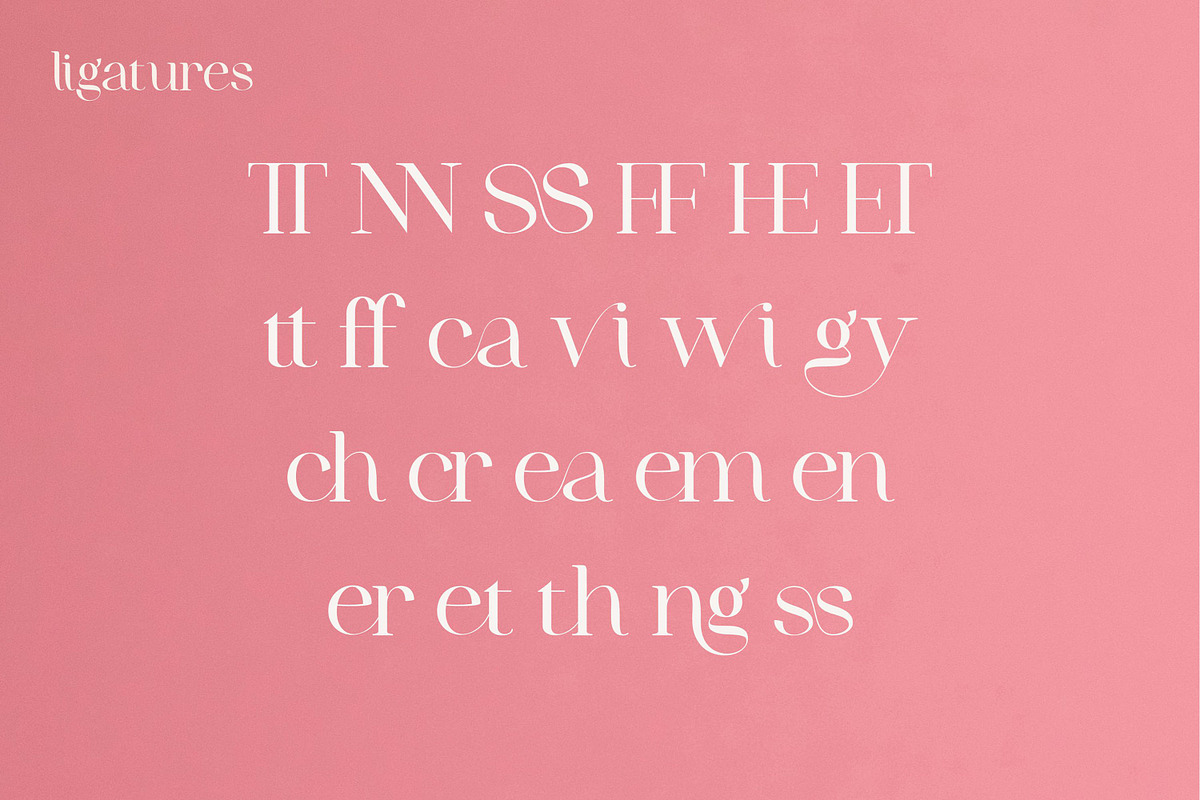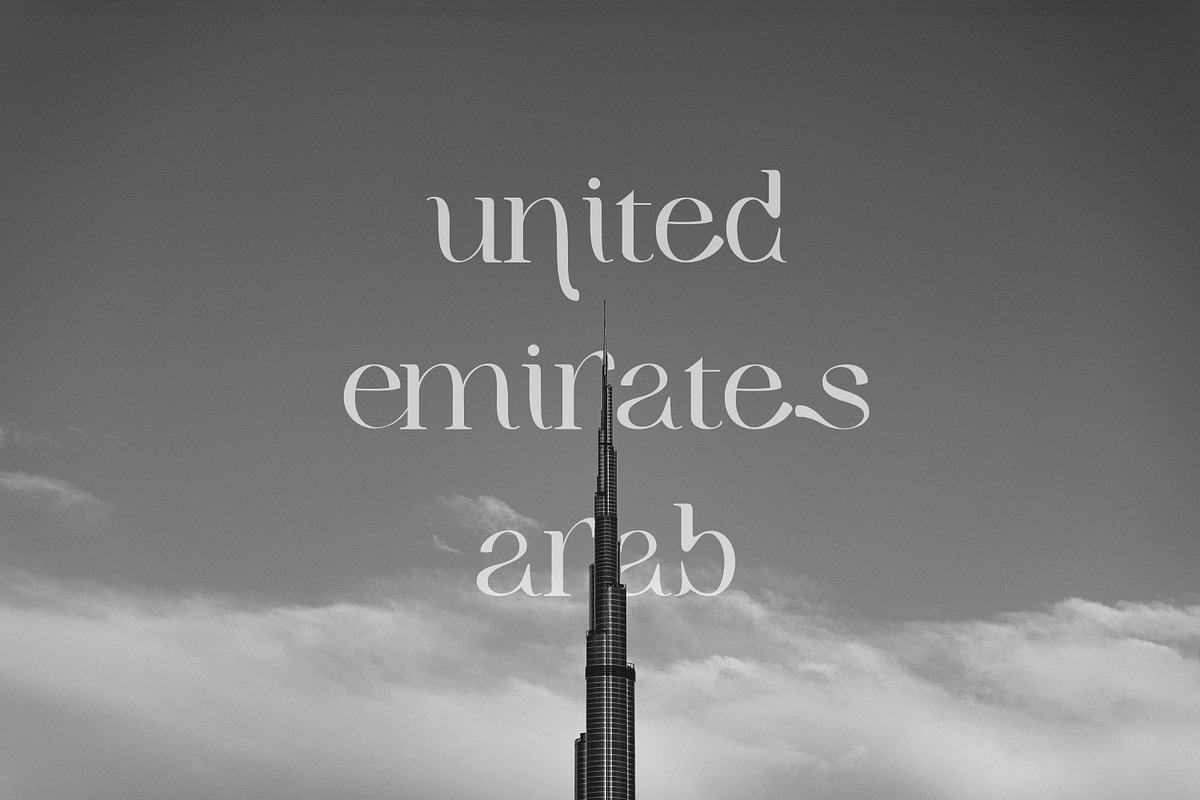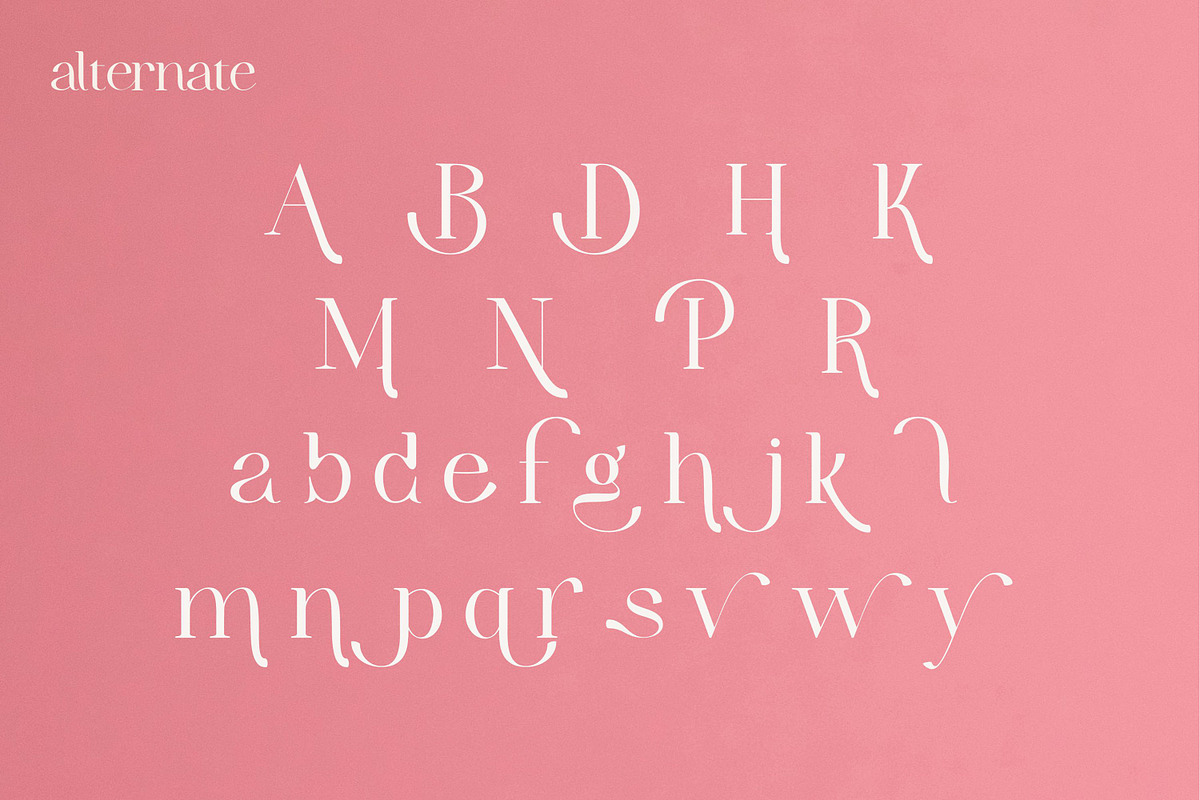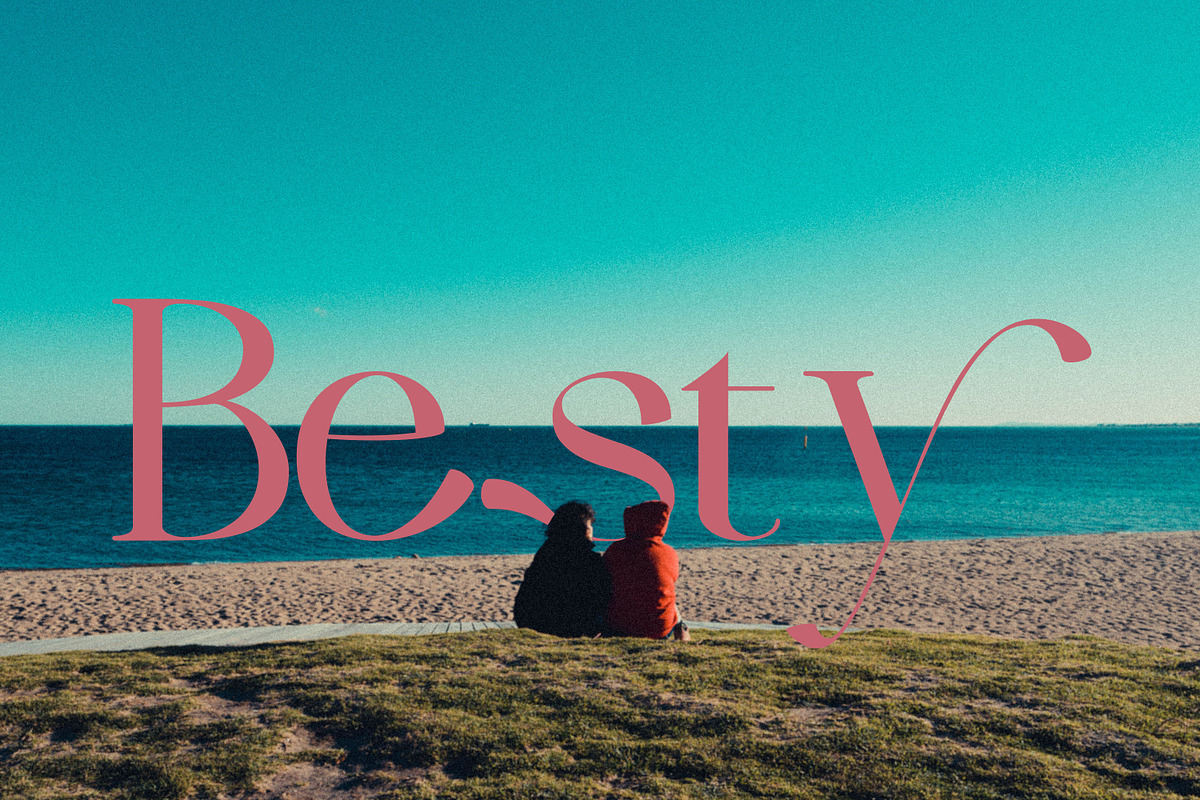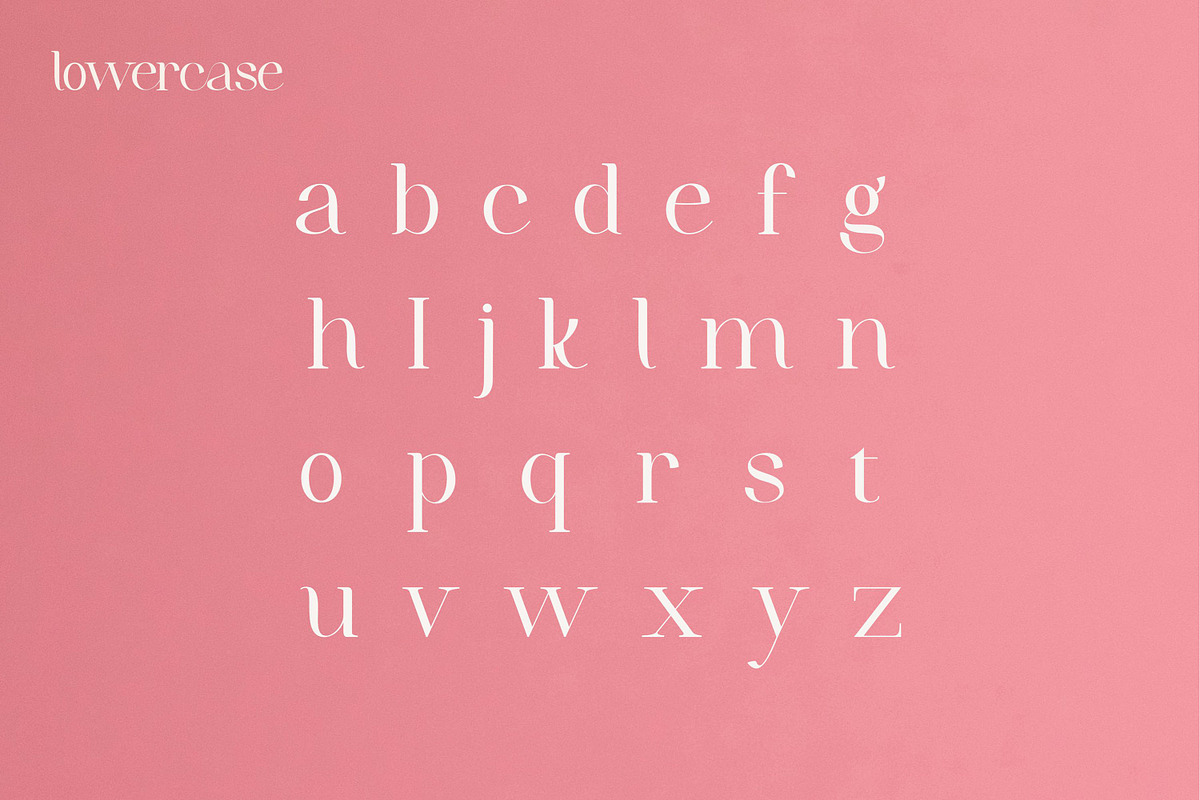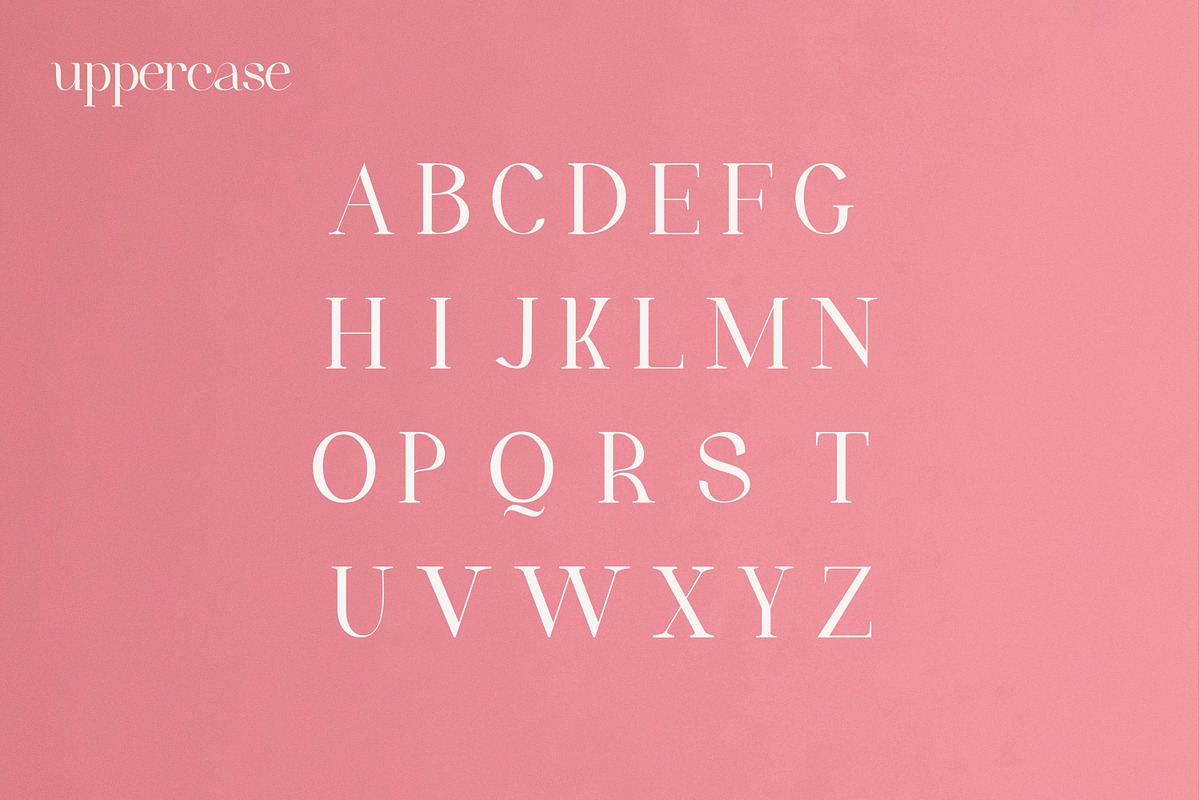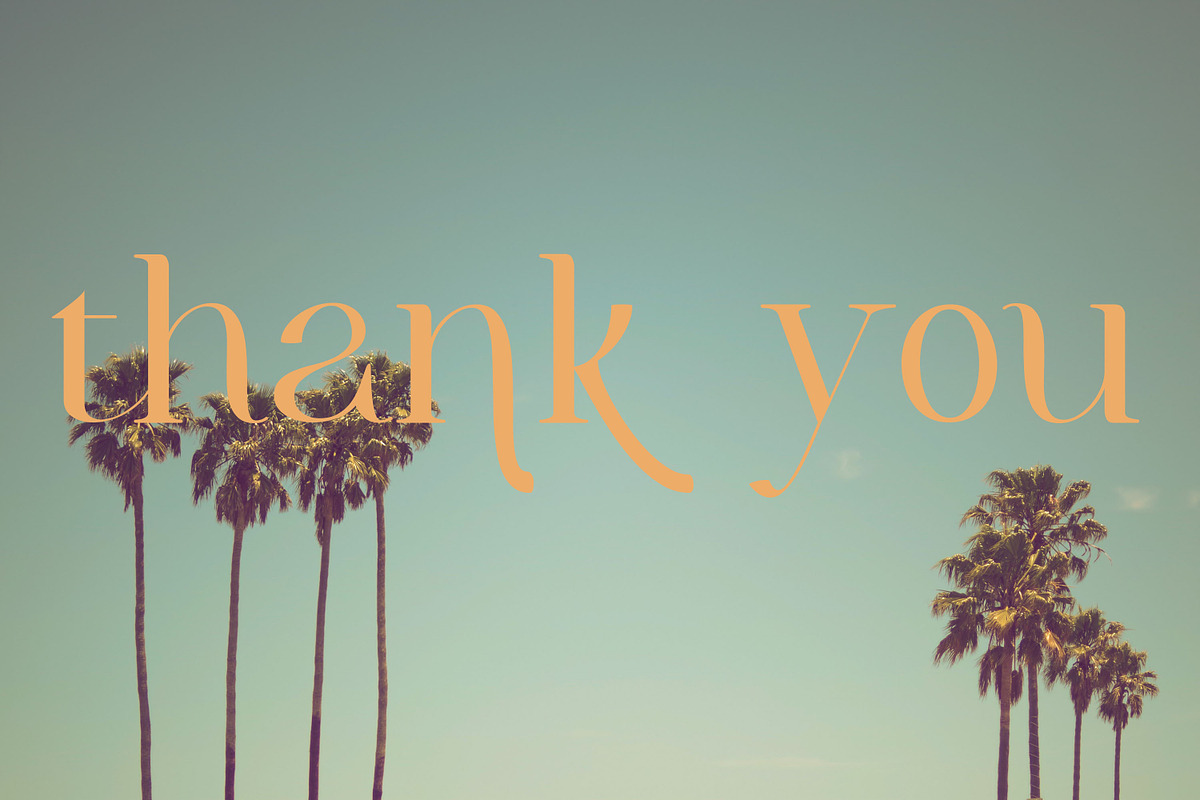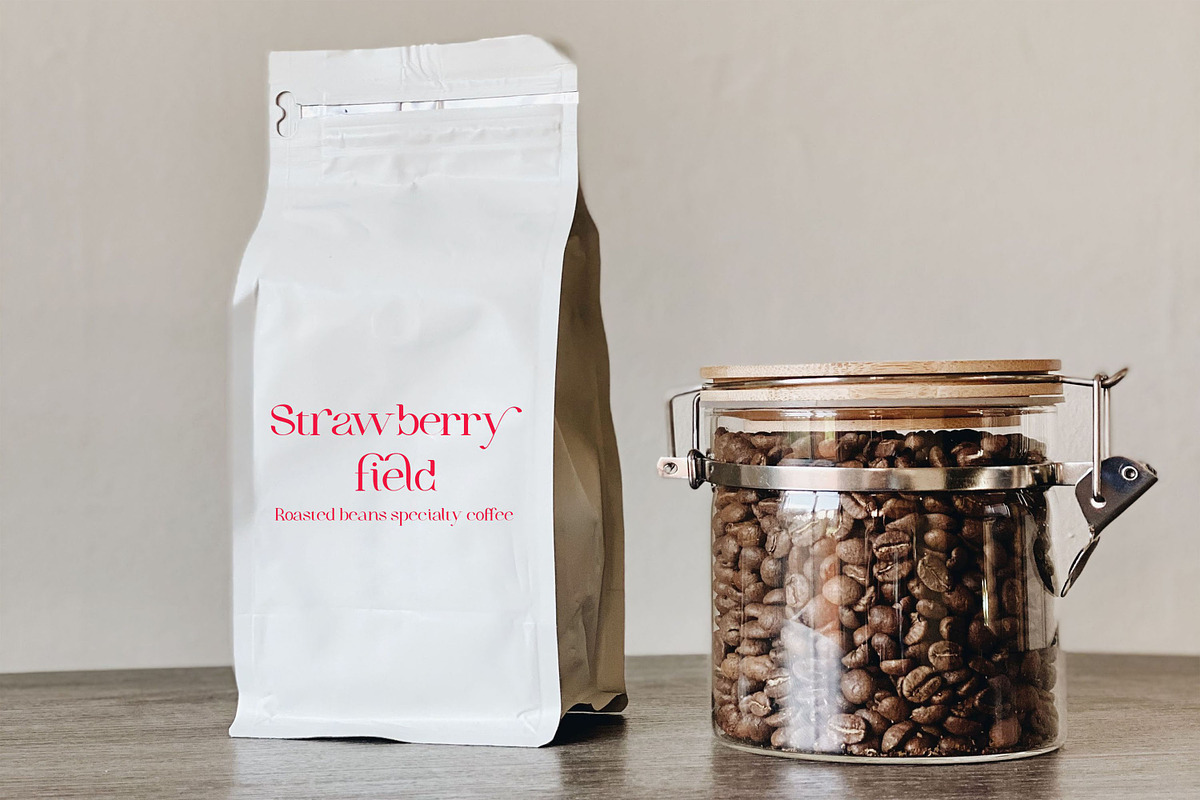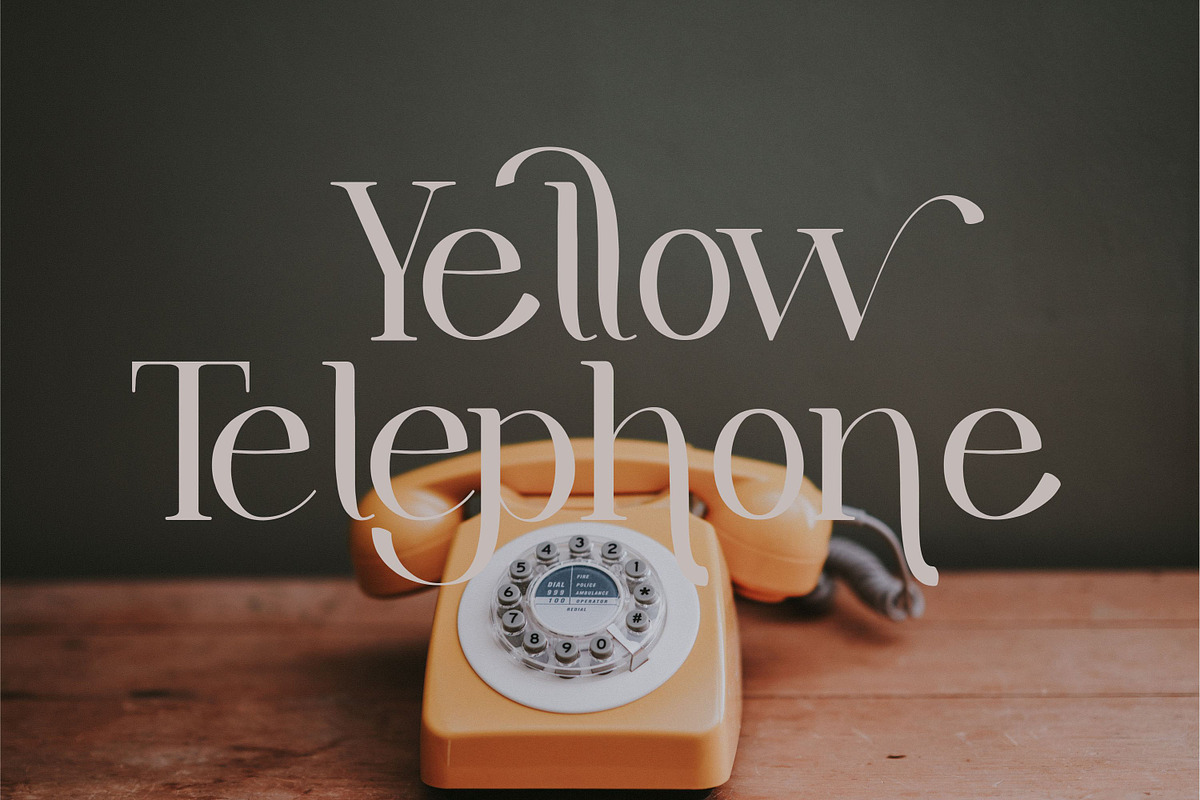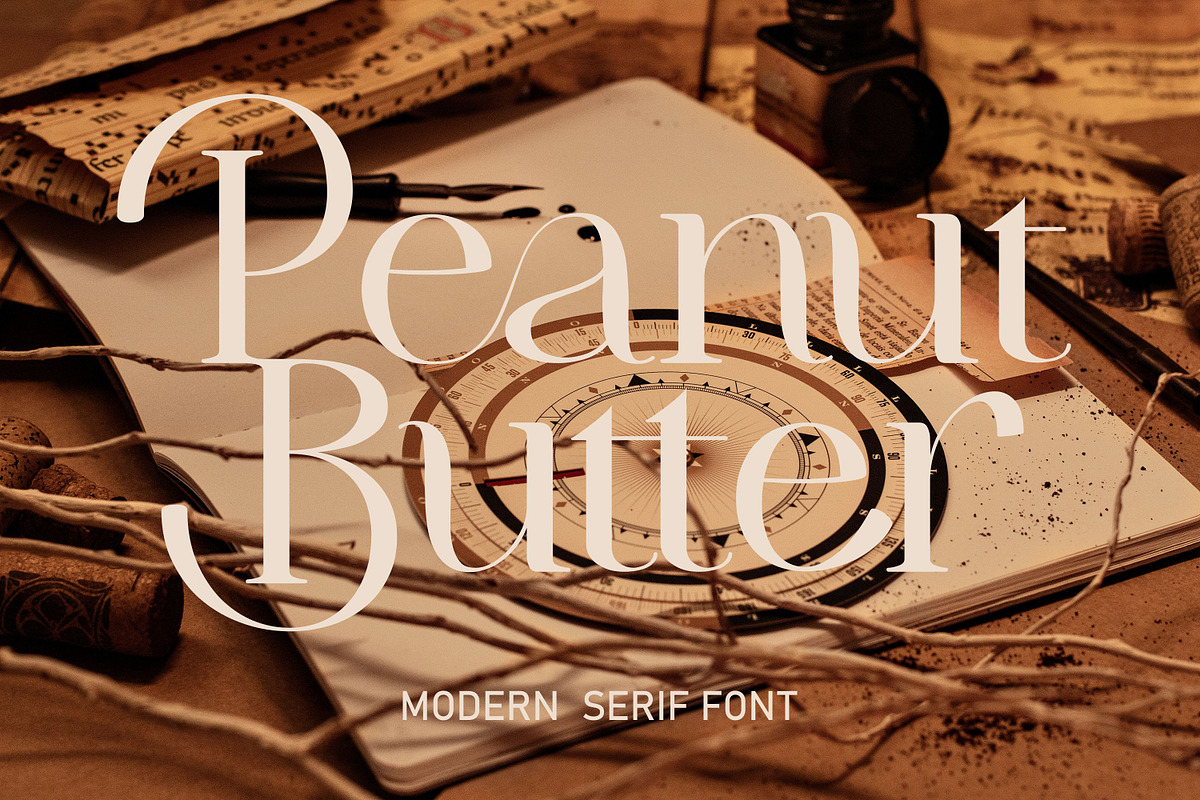
Peanut Butter
Introducing Peanut Butter, a modern serif font.It has separate lower and uppercase letters, as well as numbers and punctuation. Peanut butter is perfect for any project as branding projects, Logo design, Apparel Branding, packaging, magazine titles, birthday invitation, advertisements, T-shirts, postcards etc.